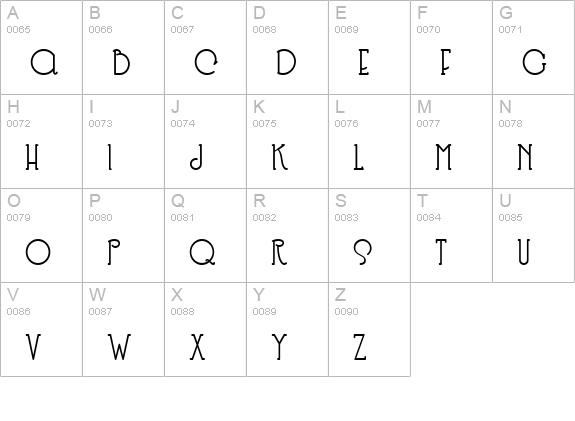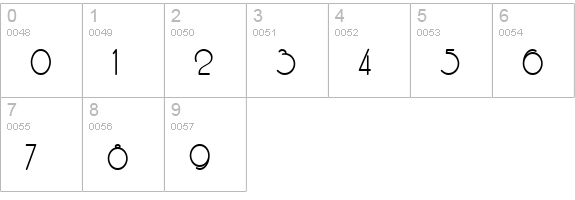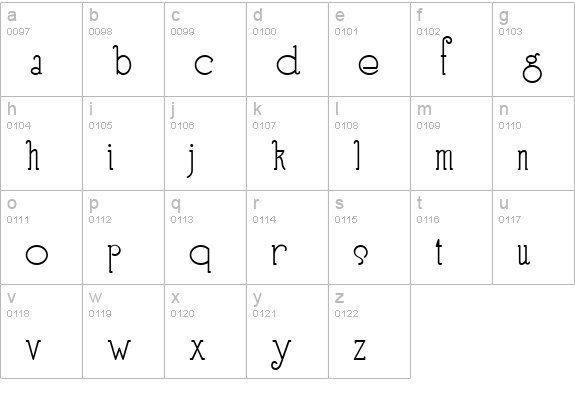
Speedball No 3 NF is a stunning display font that effortlessly combines elegance with a touch of vintage charm. The bold and dynamic letterforms exude energy and movement, making this font ideal for eye-catching headlines, posters, and branding materials. With its unique hand-drawn style and smooth curves, Speedball No 3 NF is sure to captivate viewers and leave a lasting impression. The best part? This exceptional font is available for free download at FontsMarket.com, making it easily accessible to designers and creatives looking to add a touch of flair to their projects. Whether you're working on a retro-inspired design or a modern composition, Speedball No 3 NF is a versatile and impactful choice that will elevate your work to the next level. Download it today and unleash your creativity with this striking and expressive typeface.